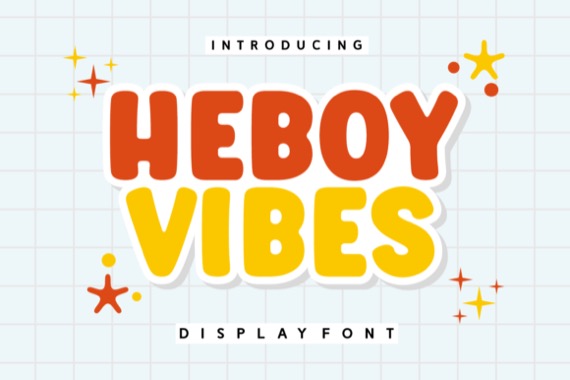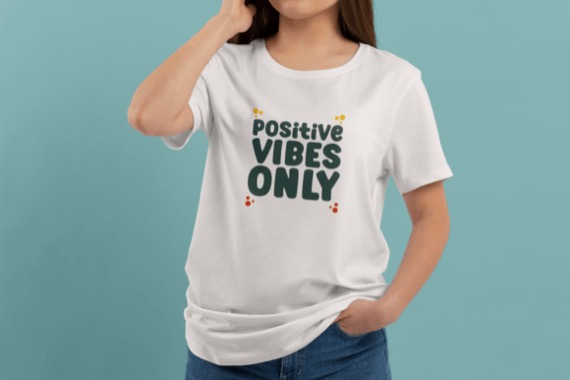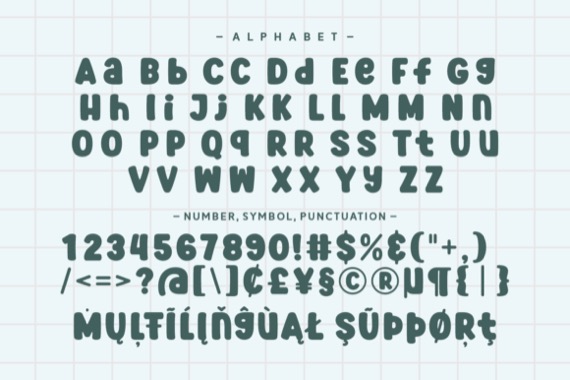
Heboy Vibes is a geometric stylish modern display font inspired by famous brands’ logos. It is a cool, incredibly cute and bubbly display font. Add it to each of your party invitation, swimming gathering or pretty much any design that requires a touch of youth and joy.
Heboy Vibes Display Font